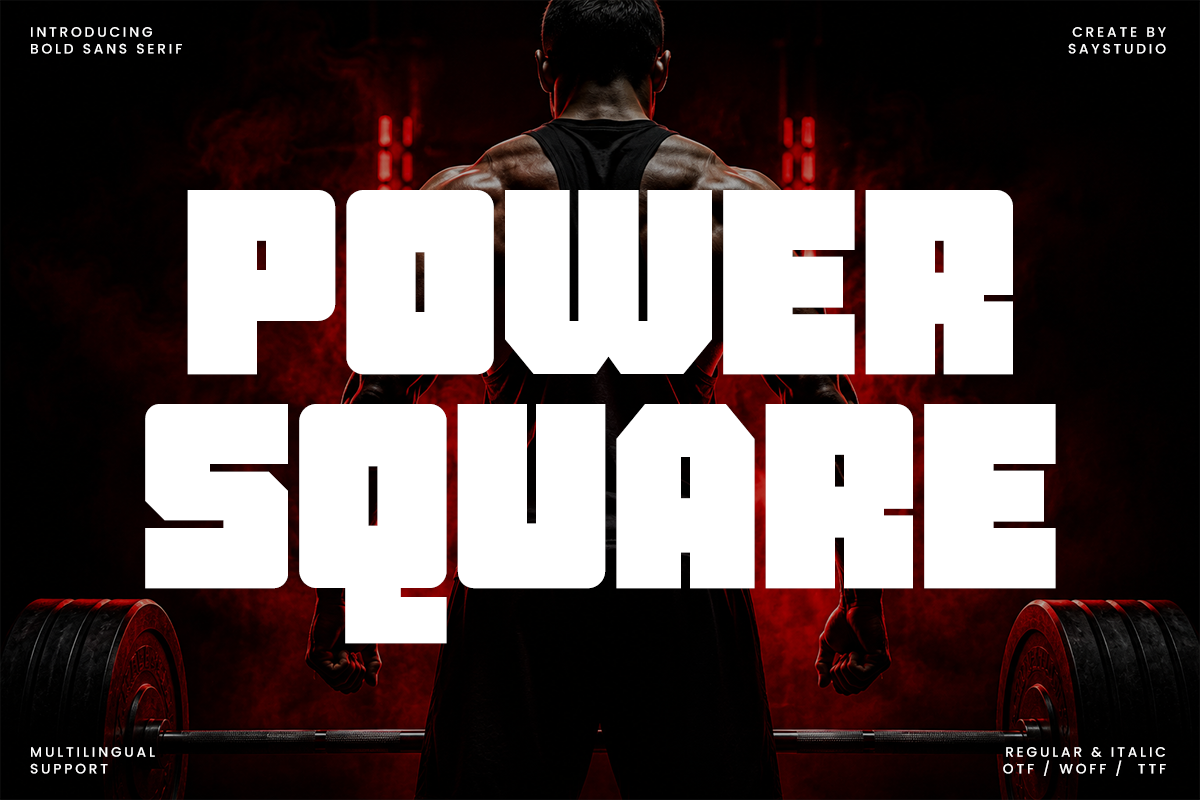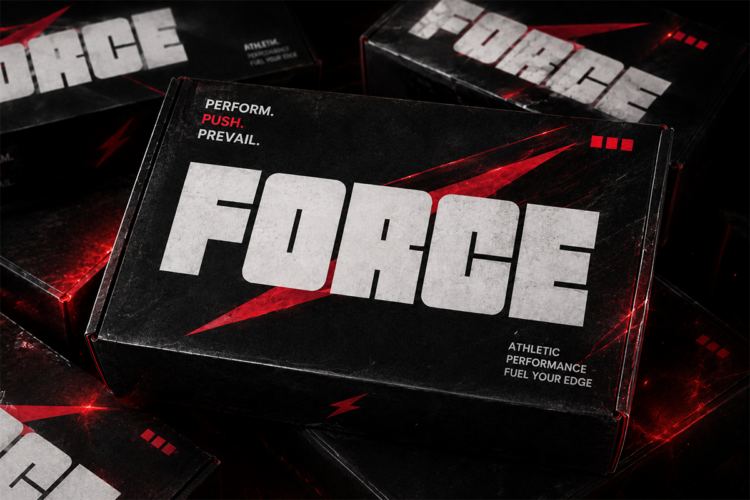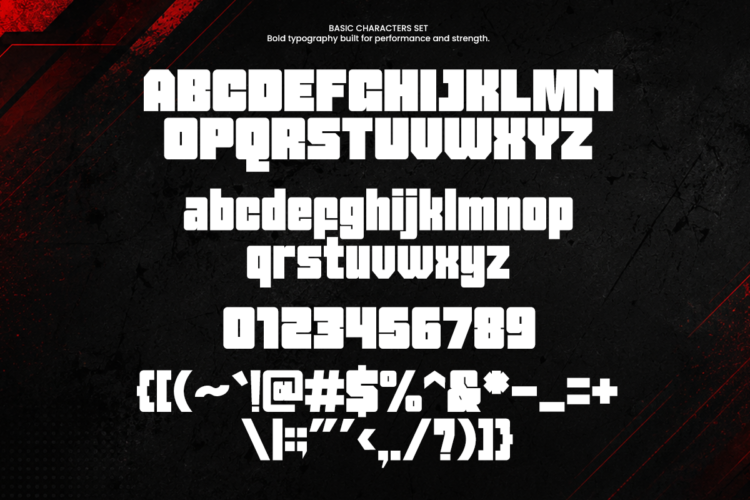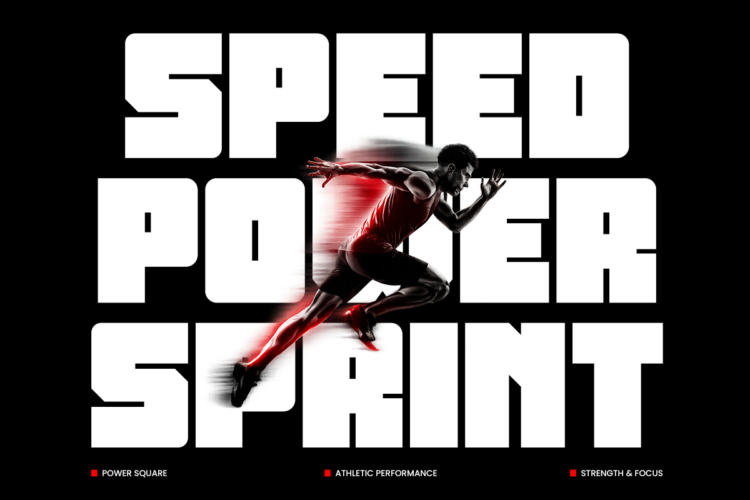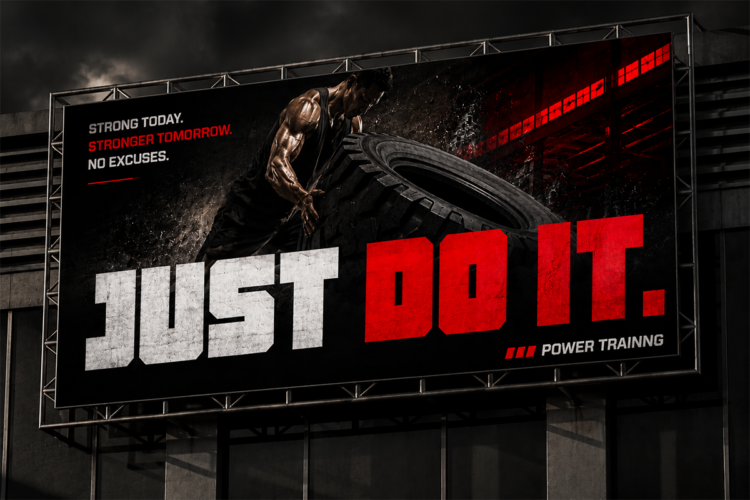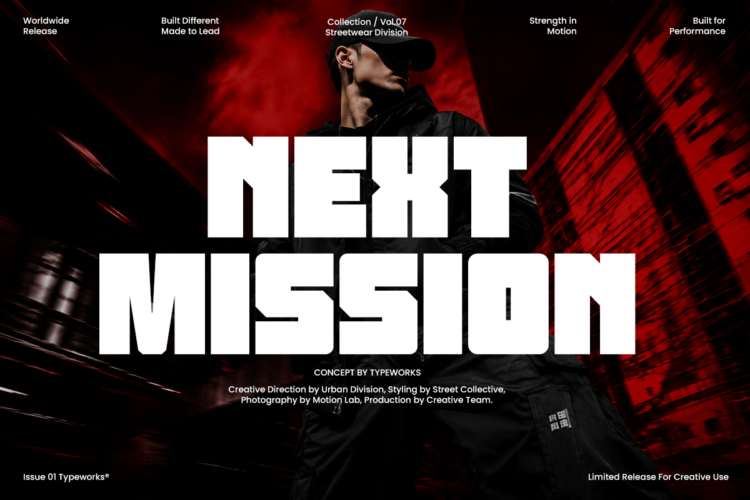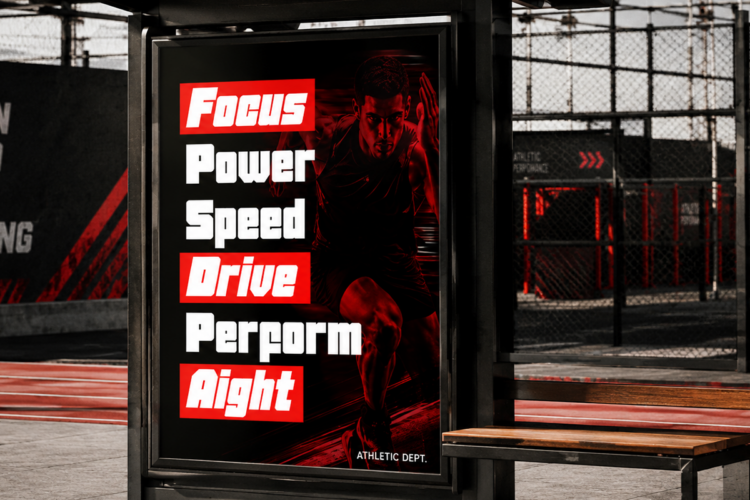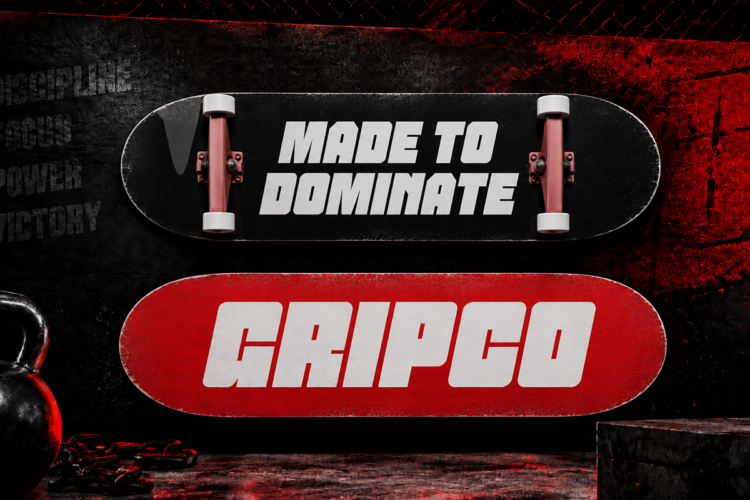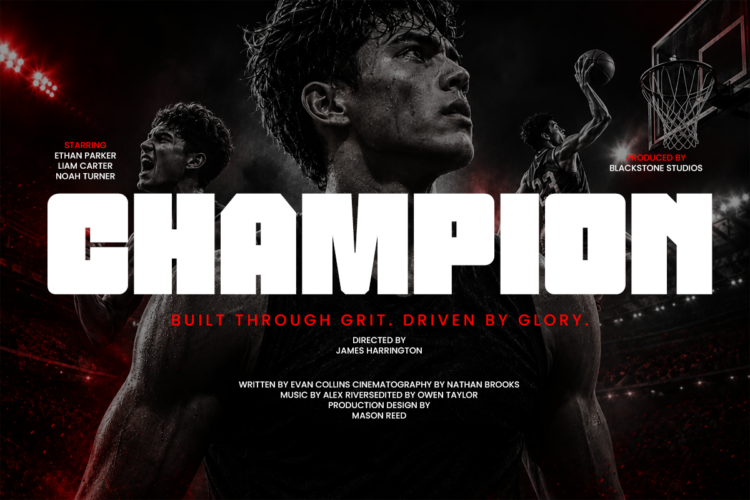
Power Square – Heavy Bold Sports Branding Font
Power Square is a bold sports display font engineered for designs that demand maximum impact. With its strong geometric construction, wide proportions, and powerful athletic personality, this typeface is ideal for sports branding, esports, fitness campaigns, racing graphics, gym promotions, and bold advertising. Every character is crafted to create eye-catching headlines that communicate speed, strength, and confidence.
Designed for versatility, Power Square performs exceptionally well across logos, posters, jerseys, merchandise, social media content, YouTube thumbnails, packaging, and promotional materials. Its clean yet aggressive style makes it a perfect choice for modern sports identities, streetwear brands, action-themed projects, and performance-focused visual campaigns.
Power Square includes uppercase, lowercase, numbers, punctuation, multilingual support. Whether you’re building a professional sports brand or creating high-energy marketing materials, this font delivers bold typography that stands out in both digital and print.